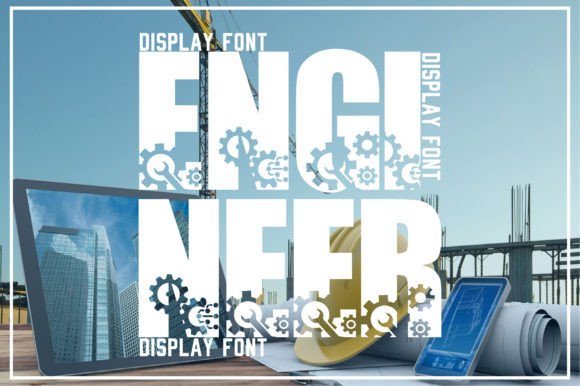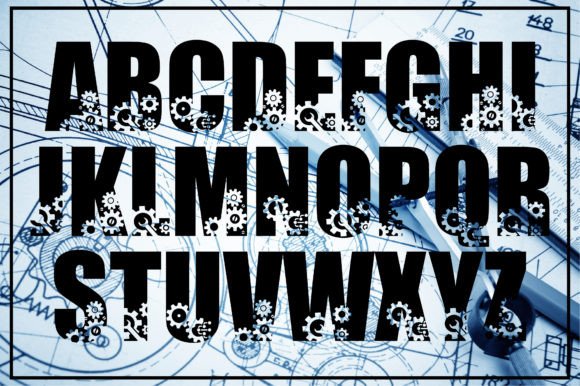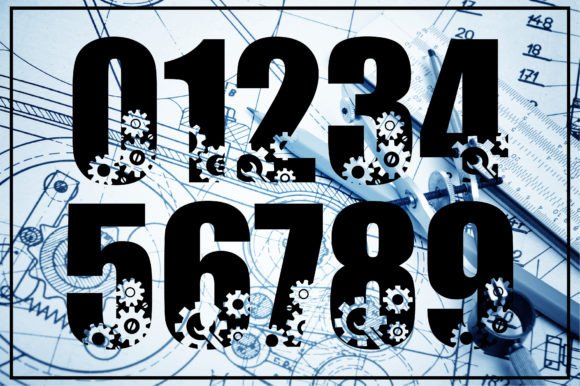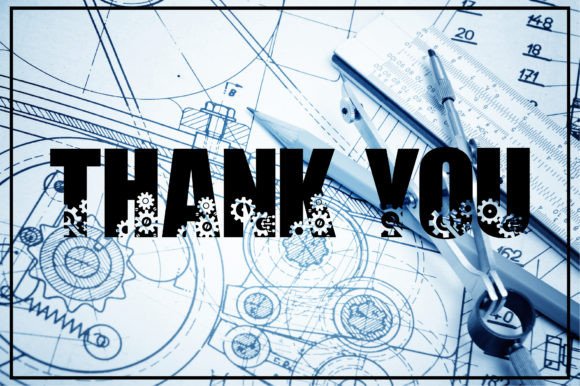
Engineer Font
About the Engineer Font
Step up your design game with Engineer Font, a font that exudes confidence and style. Engineer is a thick lettered and incredibly unique decorative font. It can be used for various design ideas, particularly those related to children’s games, science, space exploration, and school.
Engineer Font’s bold, playful personality makes it ideal for headlines, posters, and branding projects targeting children or conveying a sense of fun and adventure. It works exceptionally well in packaging design for toys, games, or educational materials. However, its decorative nature makes it less suitable for body text or UI elements where readability is paramount; long paragraphs set in Engineer would be difficult to read.
Pairing Engineer with a clean sans-serif like Open Sans for body copy creates a strong visual contrast and balanced design. For a more playful feel, consider pairing it with a rounded geometric sans-serif such as Poppins. Alternatively, a subtle serif like Merriweather can add a touch of sophistication while maintaining visual interest.
The font’s overall energy is best described as enthusiastic and approachable, making it a strong choice for projects needing a friendly, yet memorable visual impact.
Engineer Font Example